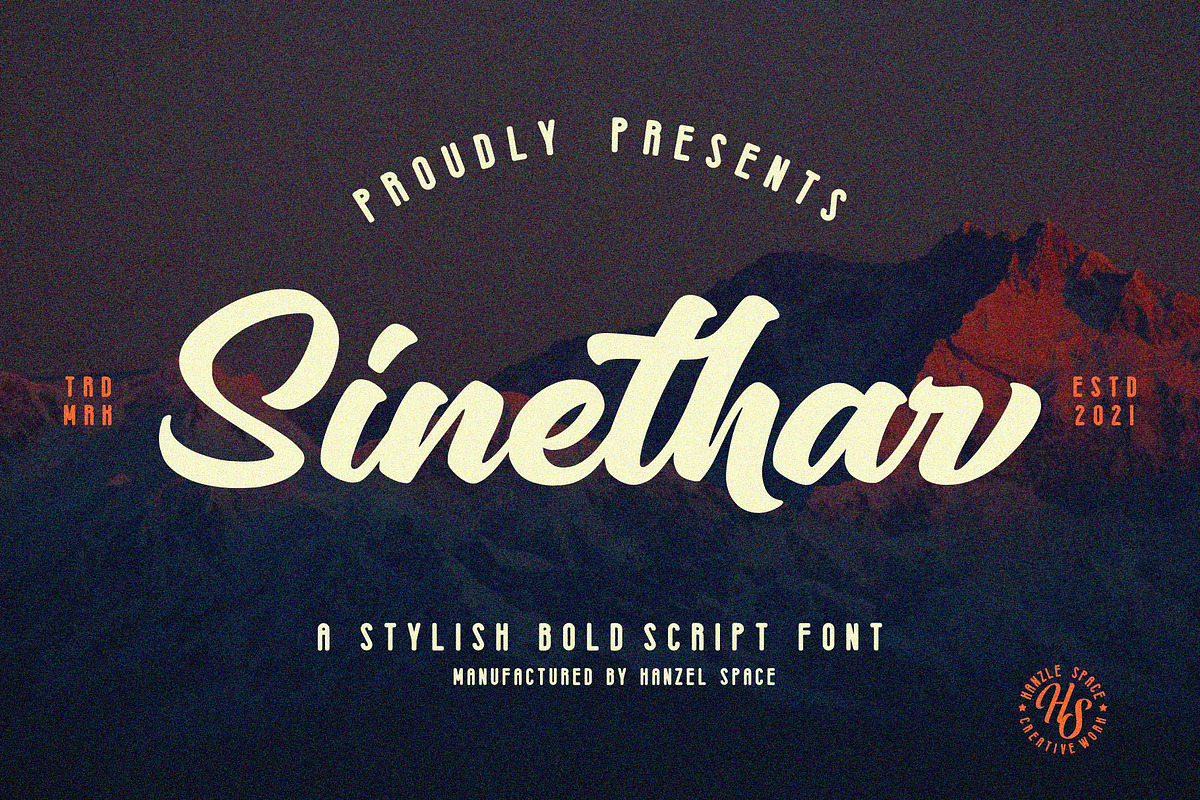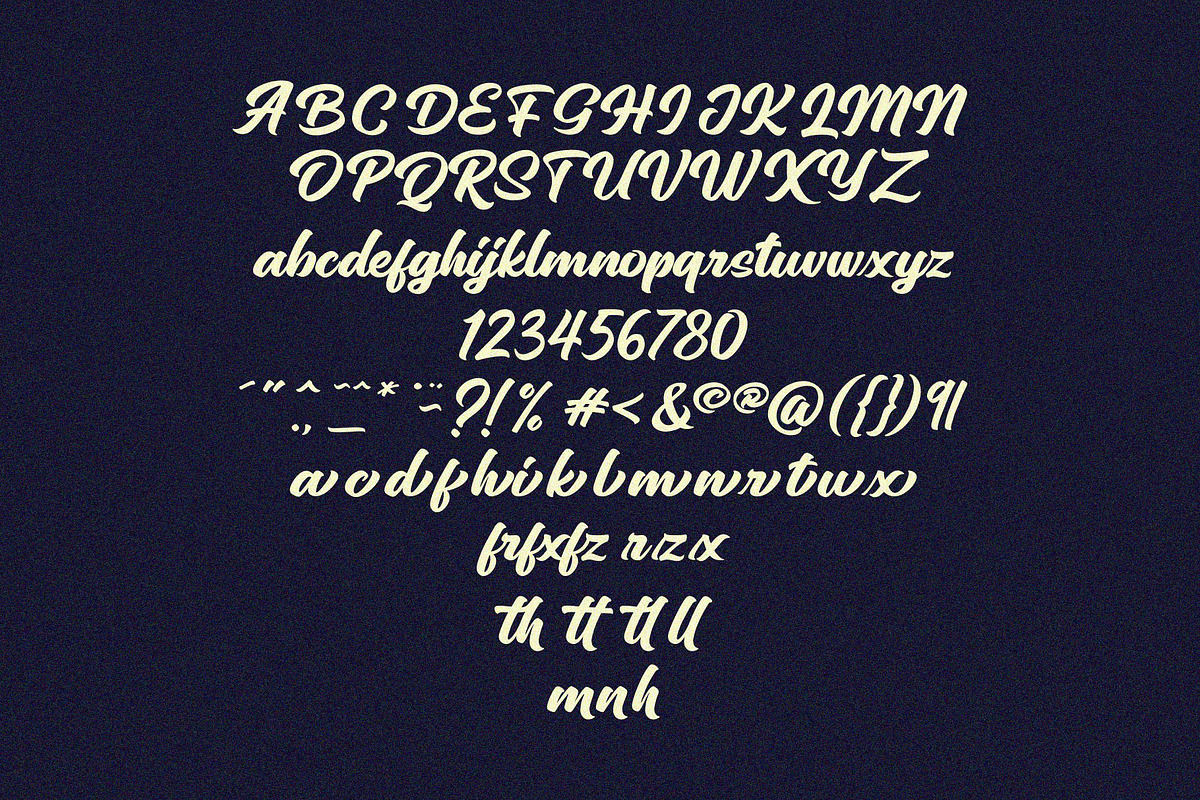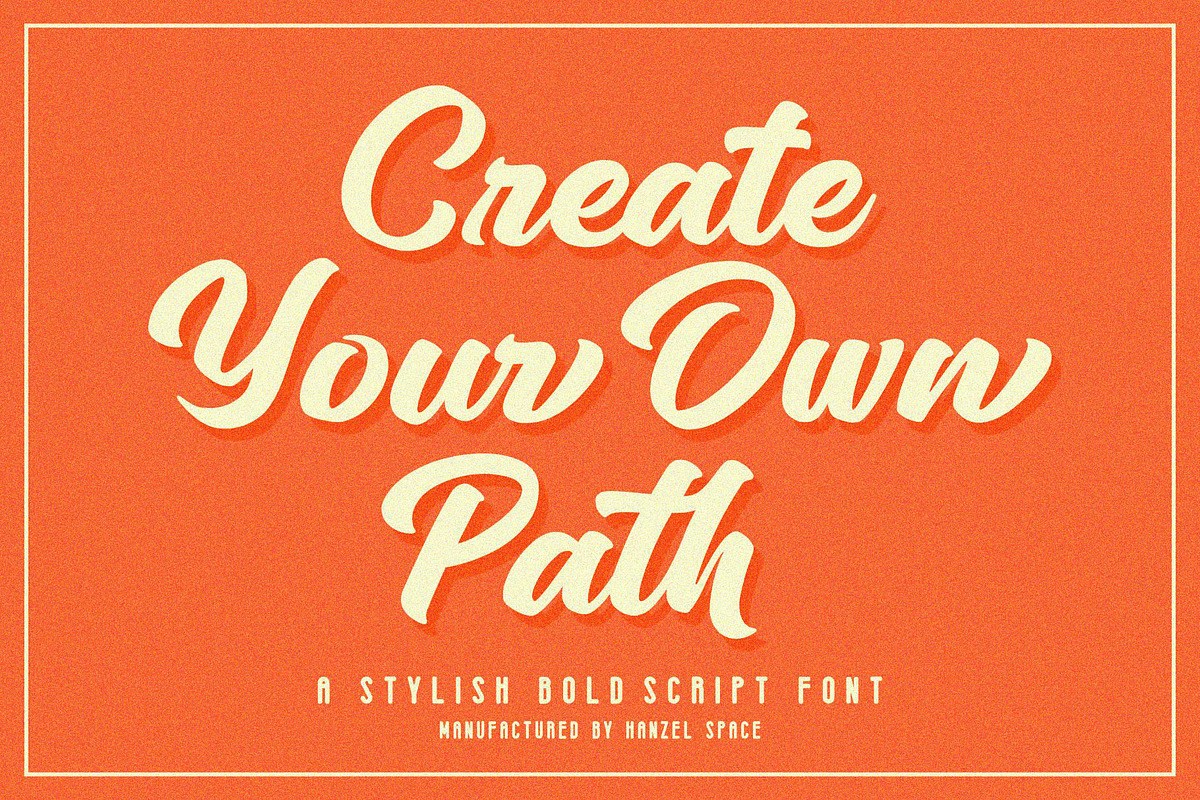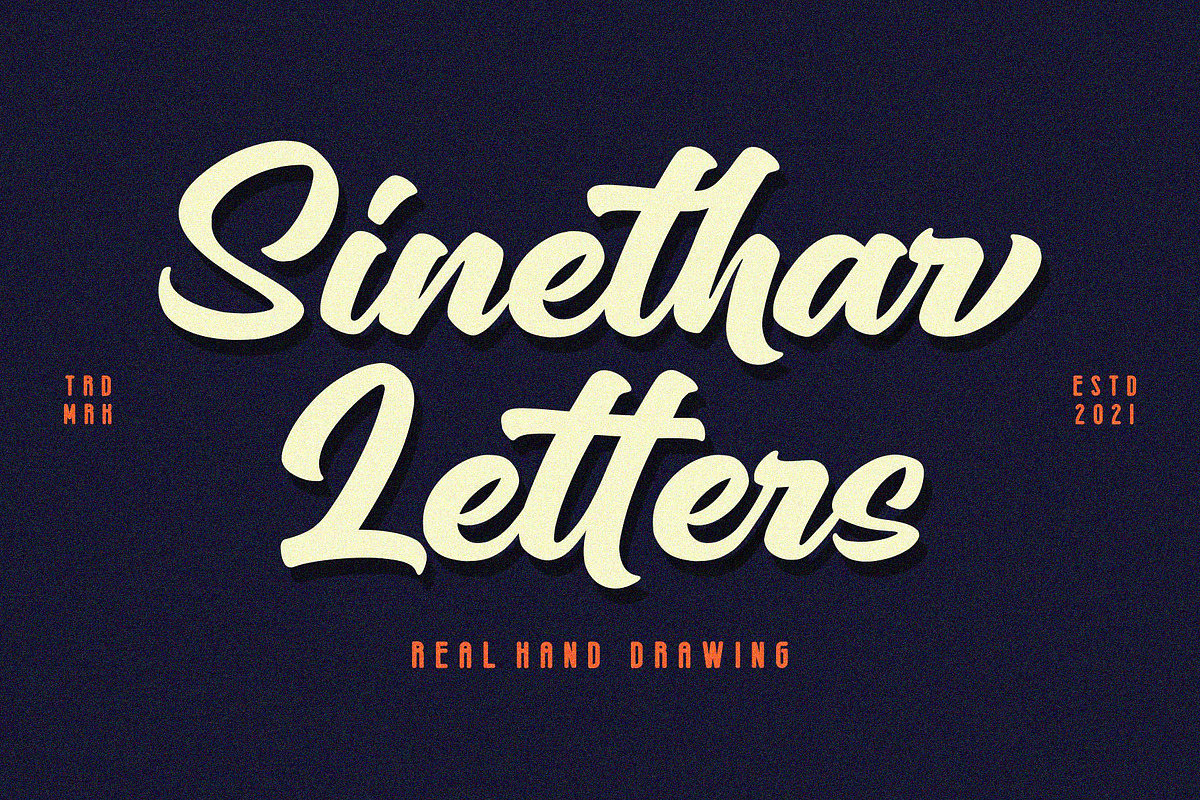
Sinethar - Bold Script
Sinethar Script Inspired by Modern Vintage & Retro style.
Sinethar Script allowing you to create hand lettering is an instant and a super handy set of bonus Swash. Ideal for logos, handwritten quotes, product packaging, header, poster, merchandise, social media & greeting cards.
Basic Latin A-Z and a-z
Symbols
Stylistic Set
Ligature